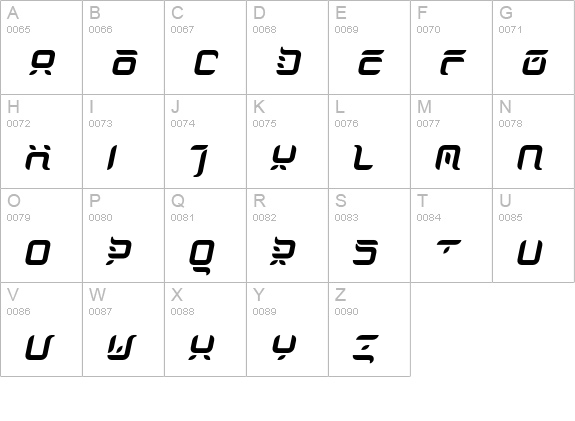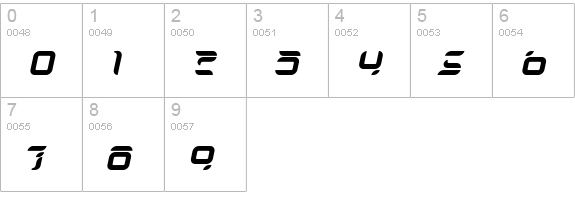
DorisOrange-Italic is a distinctive, italic variant in the DorisOrange typeface family \xE2\x80\x94 well suited to design and typography projects.
DorisOrange-Italic is a captivating and elegant font that exudes sophistication and charm. With its unique italic style, this font adds a touch of flair to any design project. Its sleek lines and stylish curves make it perfect for creating eye-catching headers, titles, and other text elements. The DorisOrange-Italic font is versatile and can be used for a variety of purposes, from branding to invitations to social media graphics. What's even better is that DorisOrange-Italic is available for free download at FontsMarket.com. This means you can easily access this stunning font and incorporate it into your projects without any cost. Don't miss out on the opportunity to enhance your designs with the beauty and elegance of DorisOrange-Italic. Download it today and elevate your creative work to the next level!